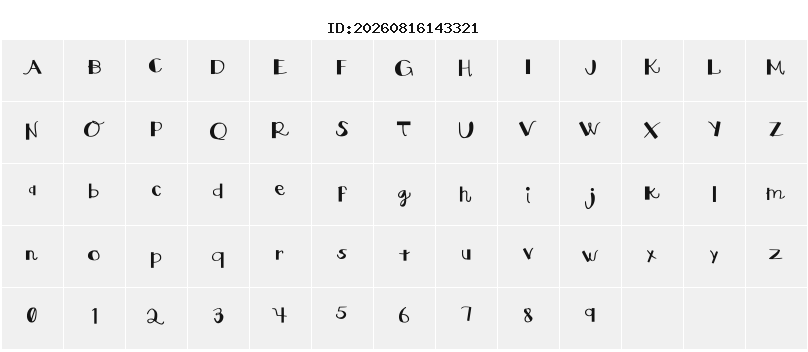
Square Curves Preview
• Font Name: Square Curves
• Full Font Name: Square Curves Medium
About Square Curves.ttf
Square Curves.ttf is a modern, elegant sans-serif font designed for ultimate readability and visual harmony. Perfect for branding, headlines, web design, and print materials.